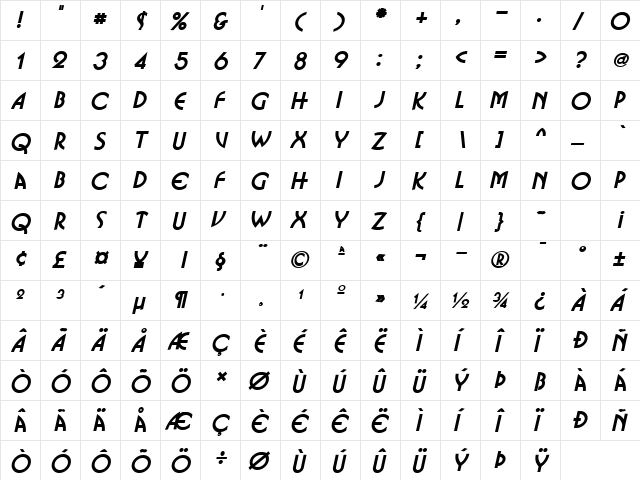
Busso-Extended Italic
Design Context for Busso-Extended Typeface
Busso-Extended takes a measured approach to typography — its balanced proportions and neutral character make it a reliable workhorse for both digital and print work. The slanted form adds forward momentum and visual energy.
Pro Tip: Use Busso-Extended for emphasis, pull quotes, and subheadings where its slanted energy can add rhythm to the layout.